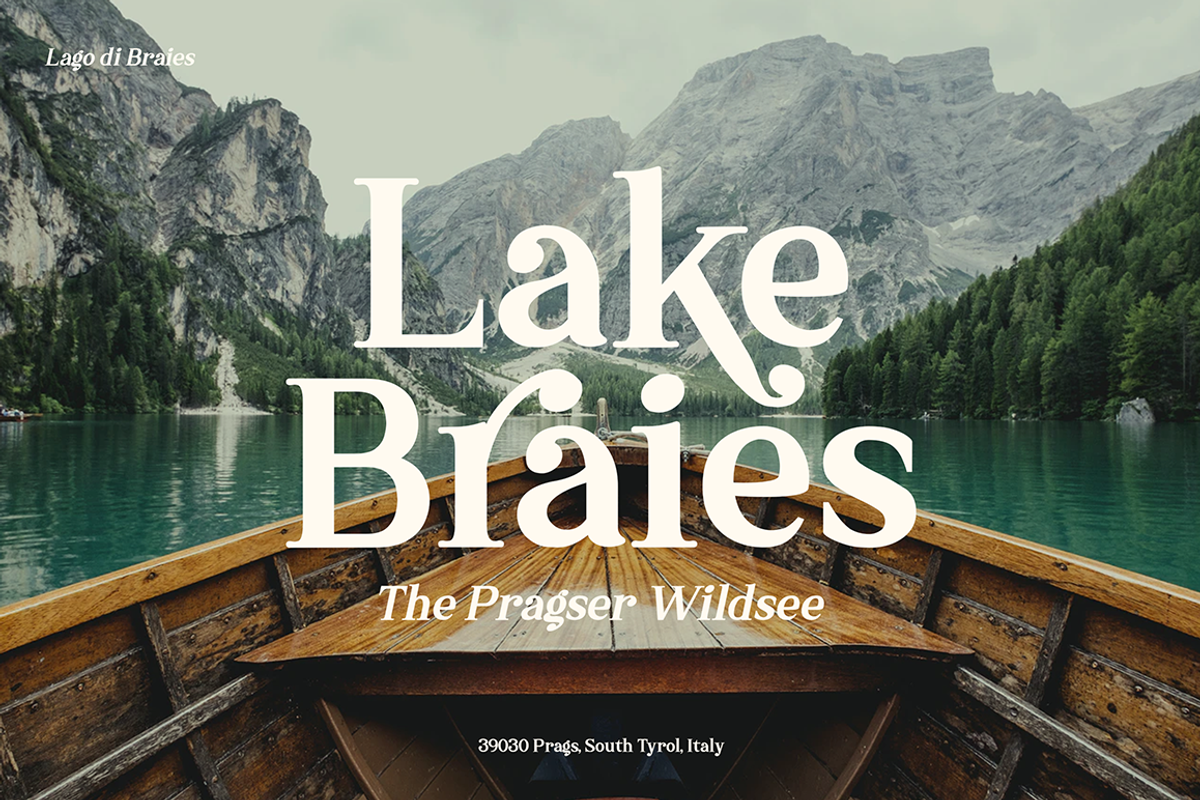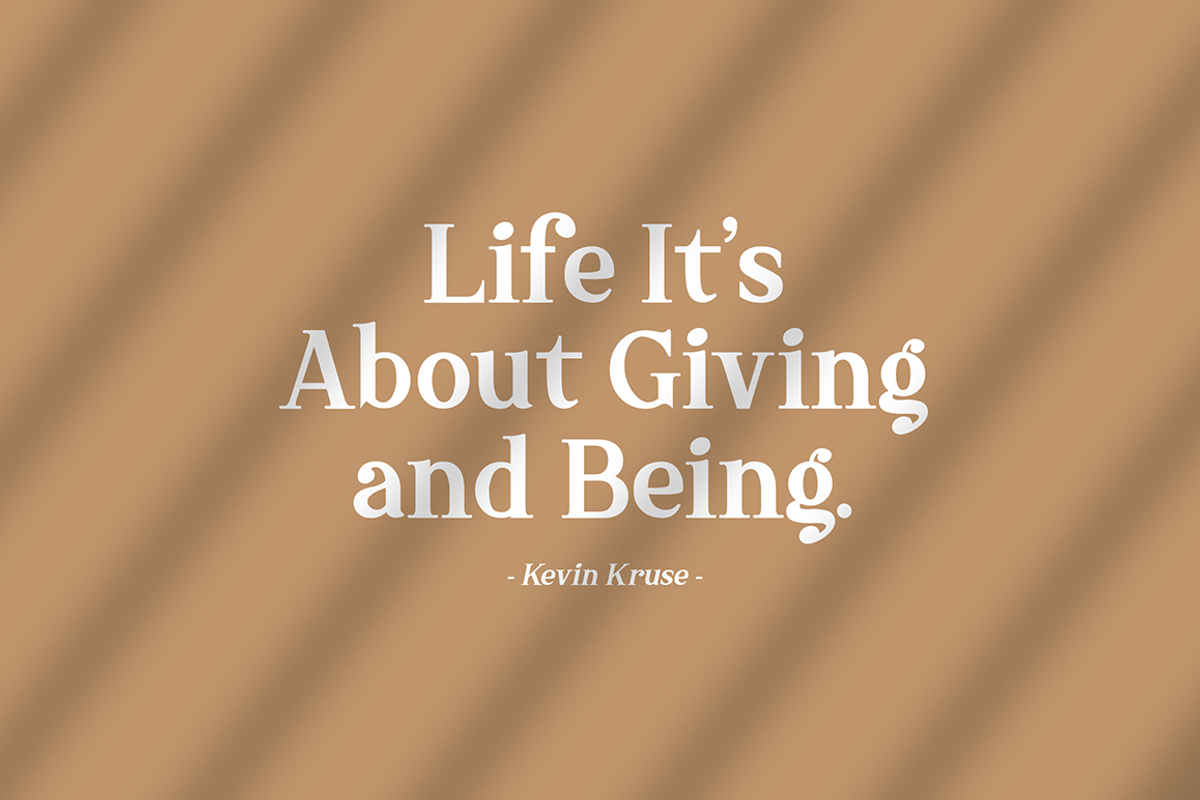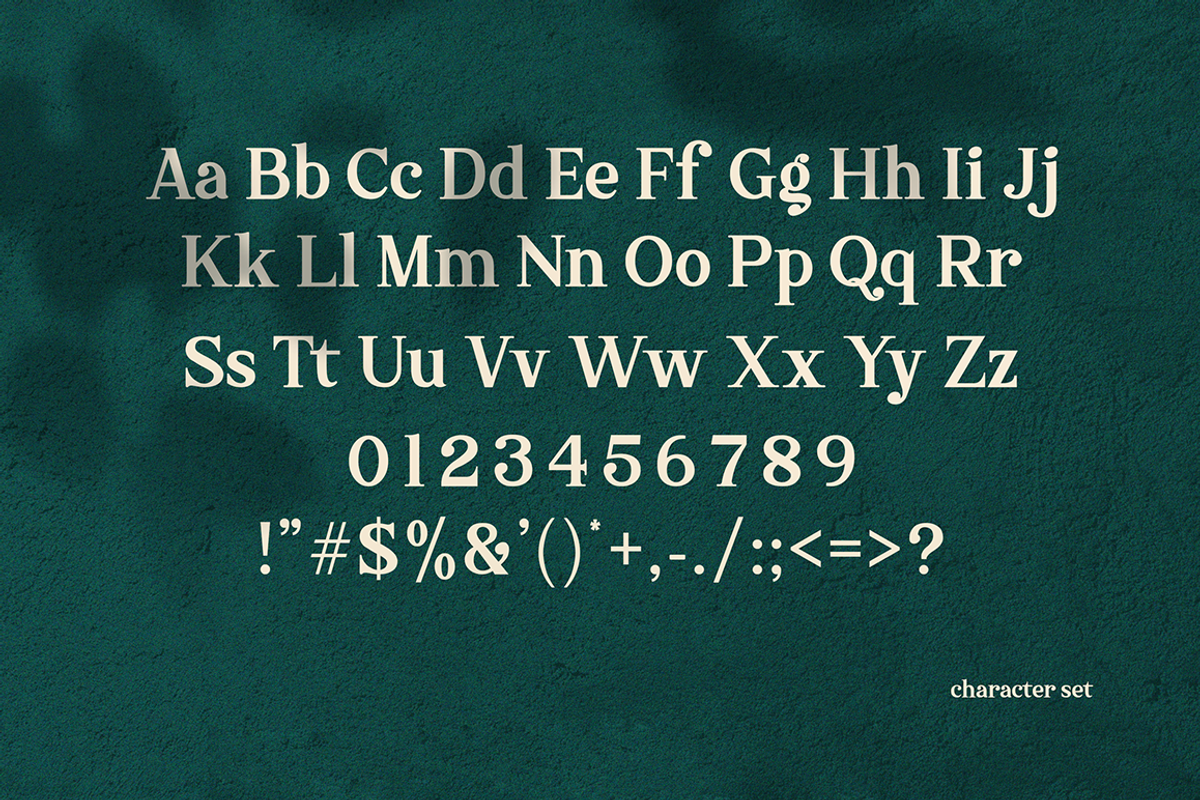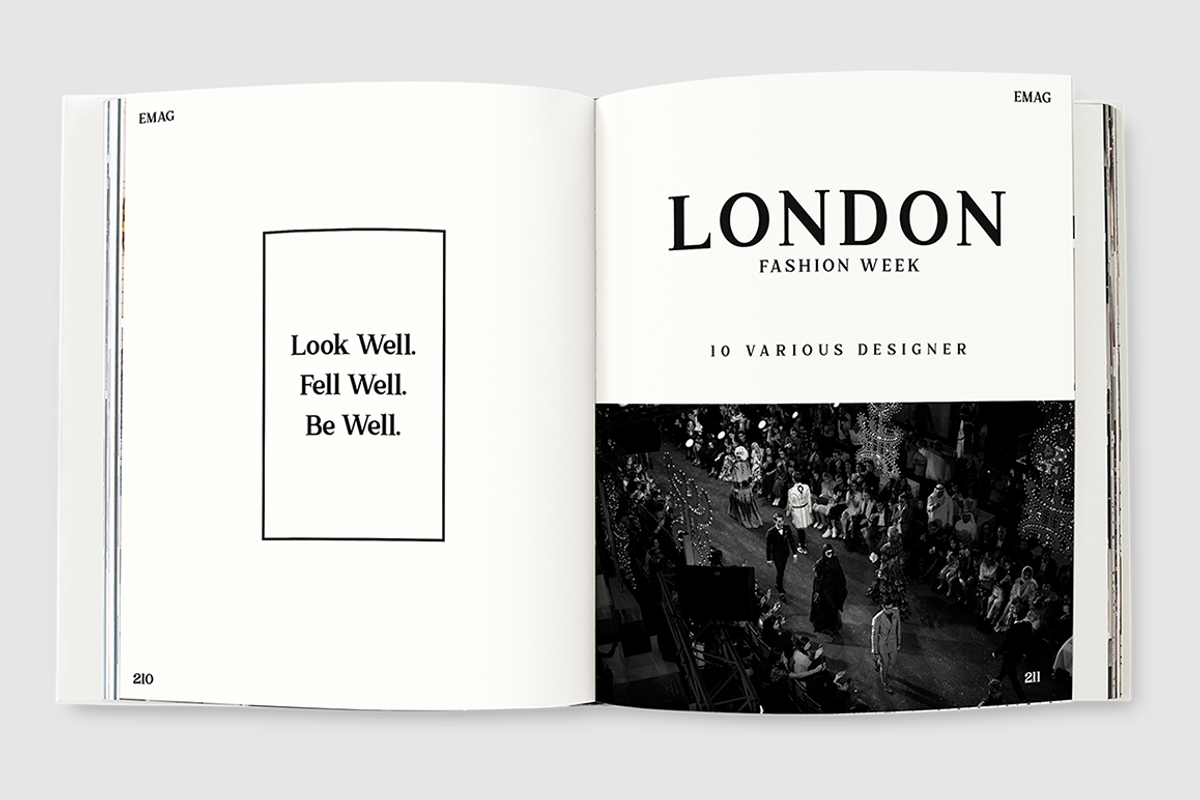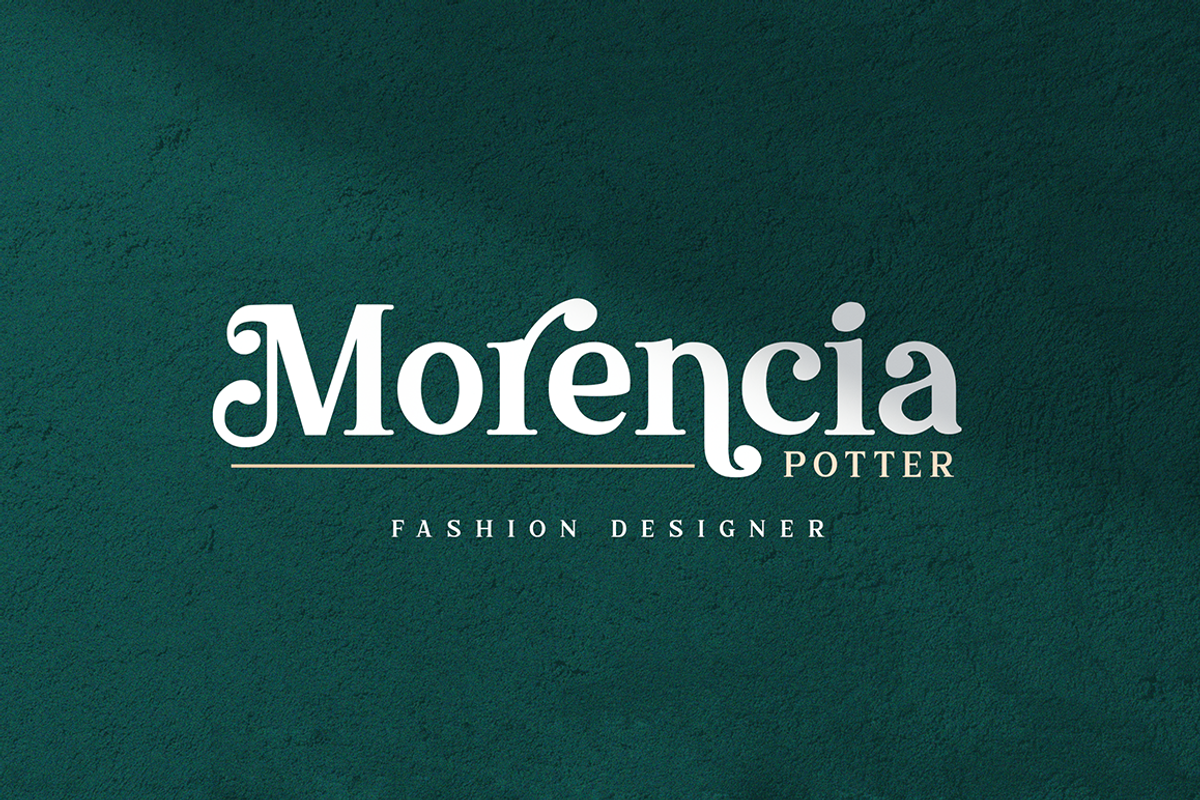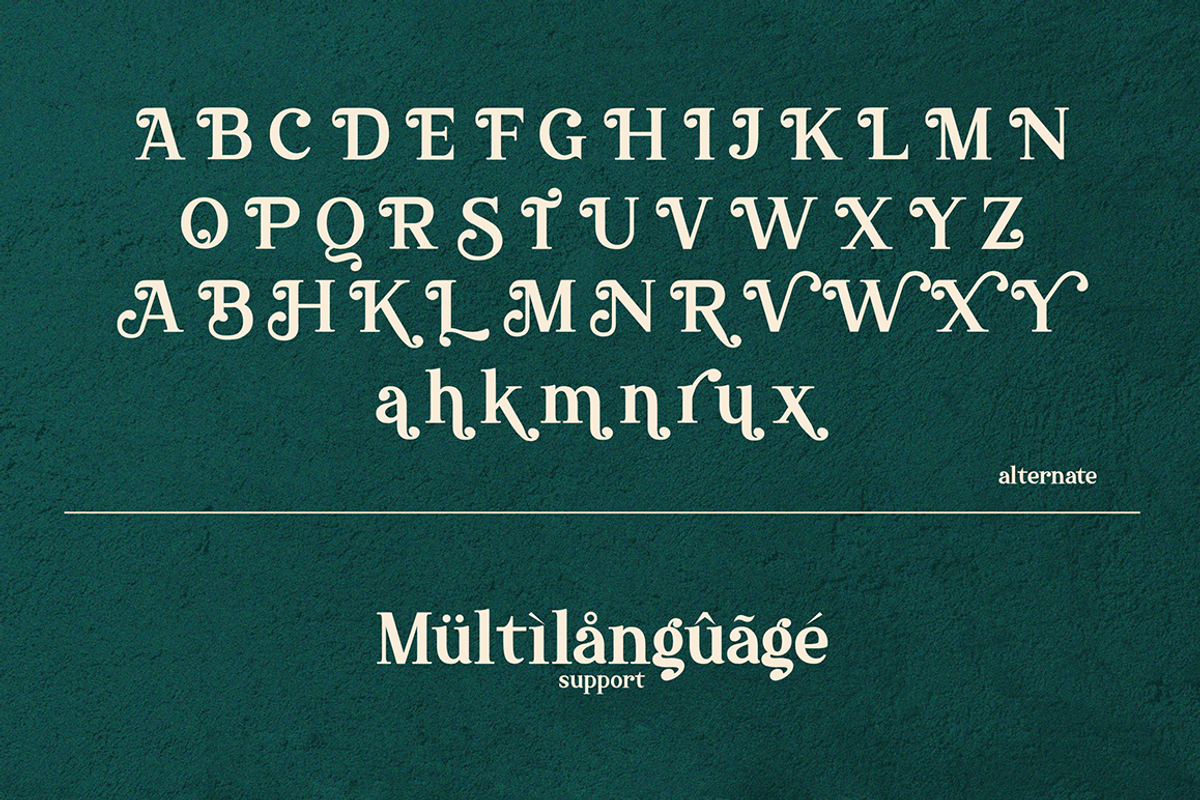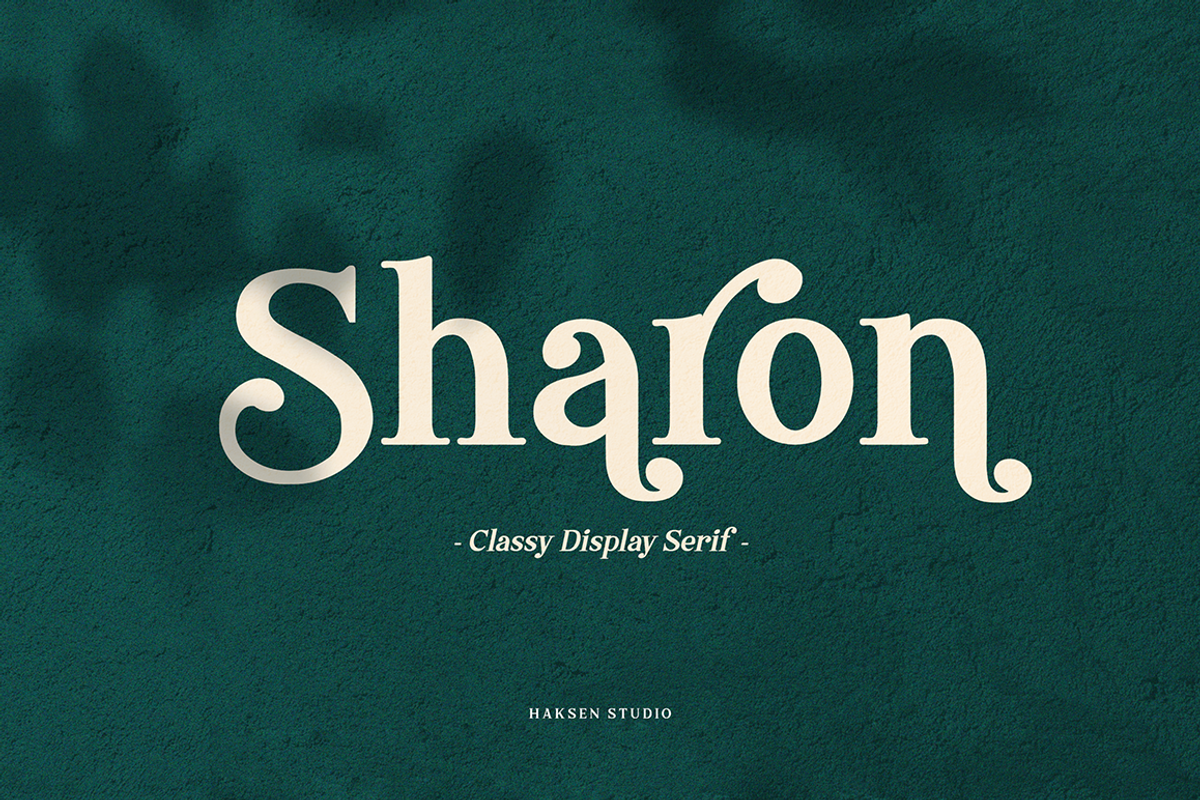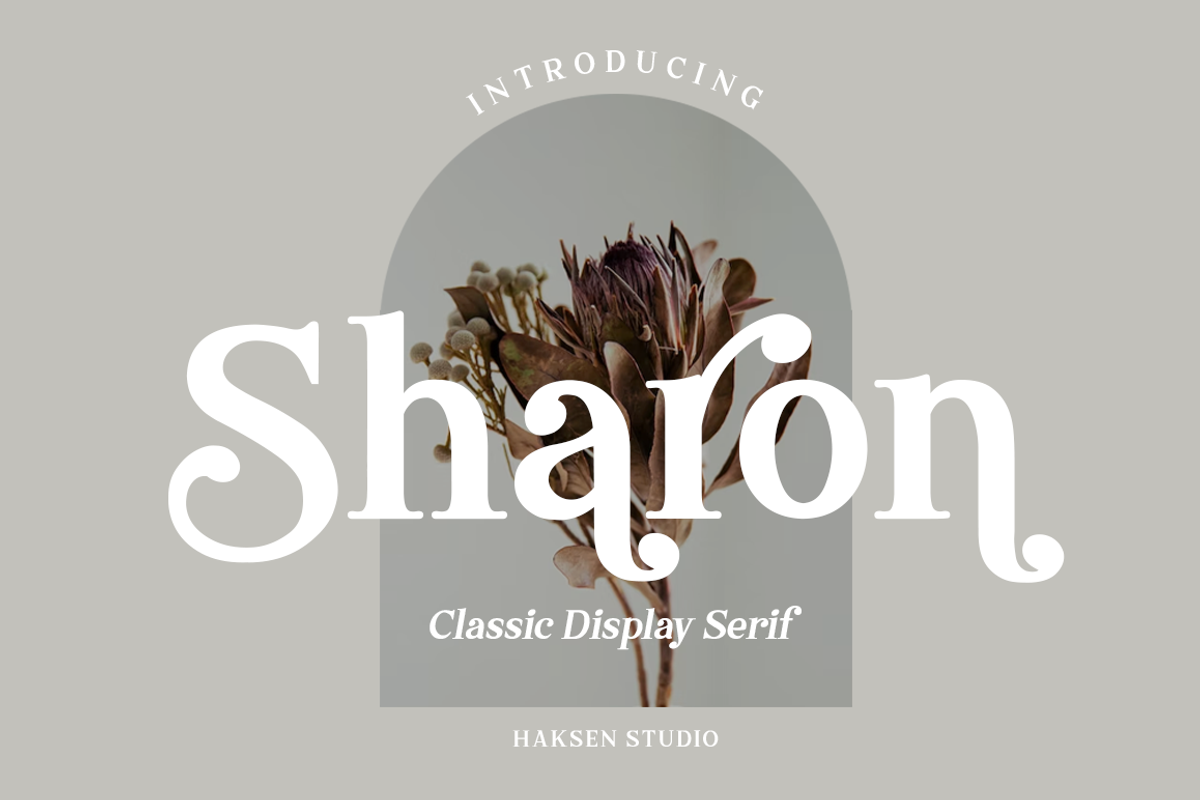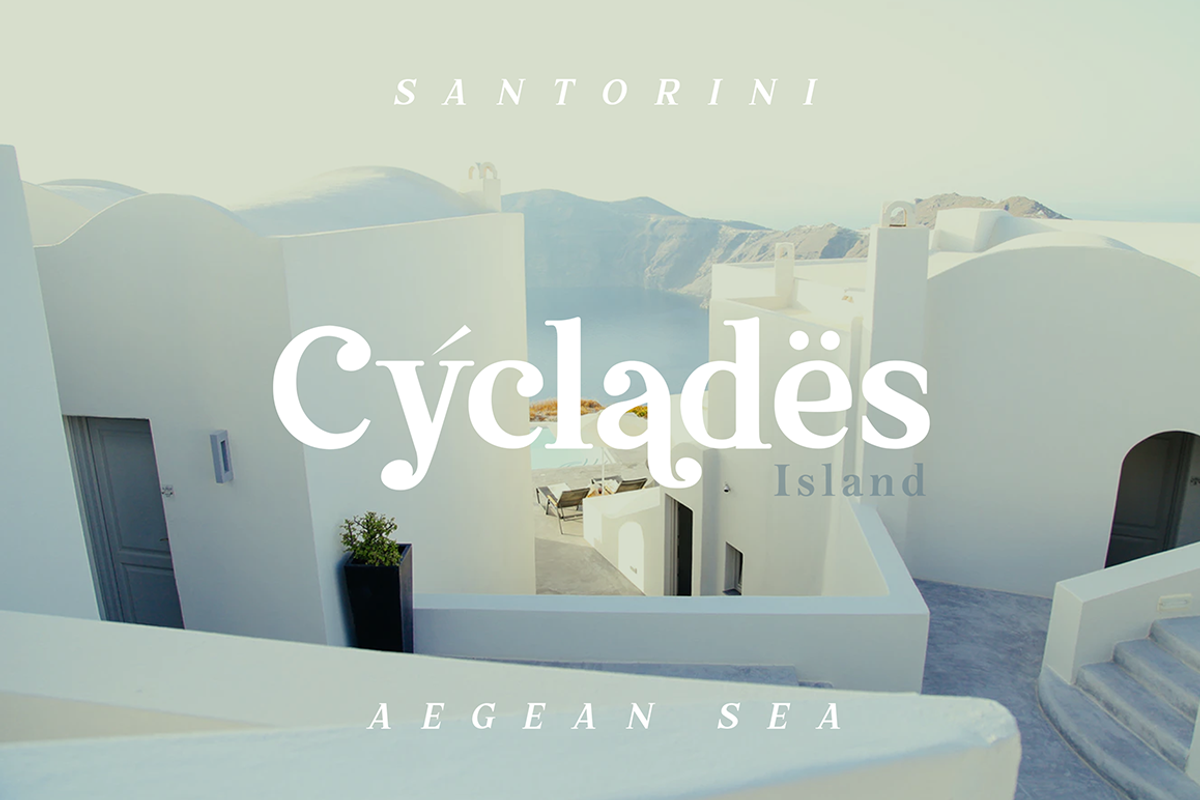
Sharon Modern/Vintage Font
Sharon is a modern/vintage serif style with Uppercase and Lowercase feel nice balanced. Provide alternates font in uppercase and lowercase variant style make the design letter looks incredible. Honestly it works perfectly for headlines, logos, posters, packaging, T-shirts and much more.
- Regular and Italic version
- Character set A-Z in uppercase and lowercase
- Alternates in Uppercase Lowercase
- Accented Characters
- Multiple Languages Supported